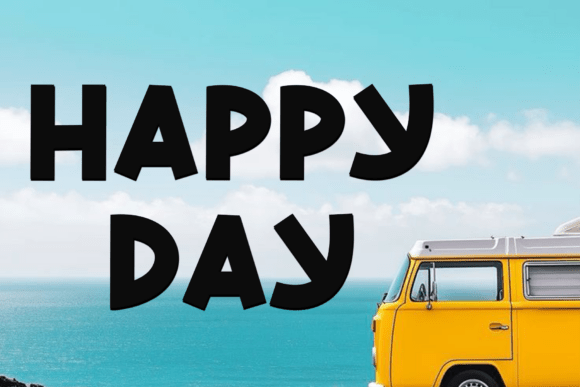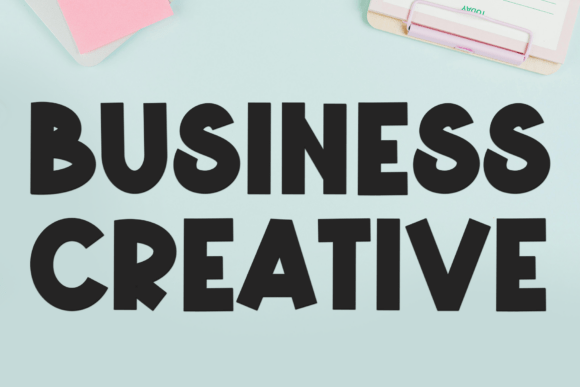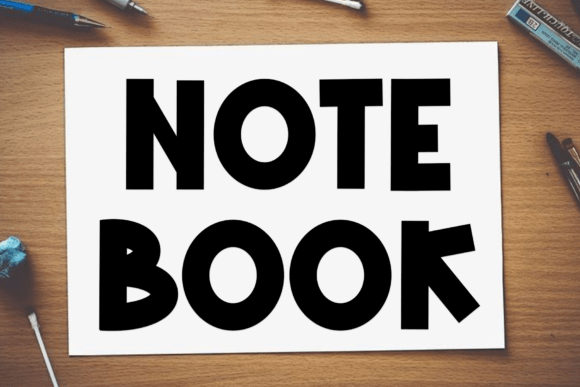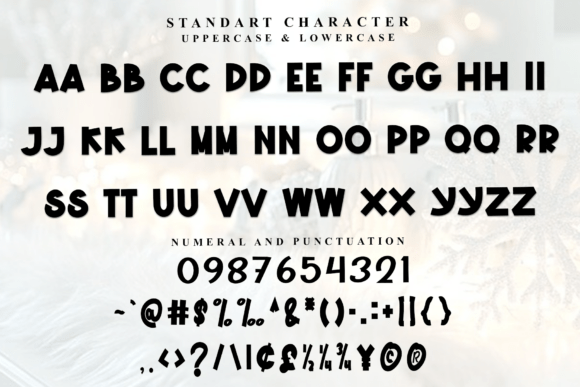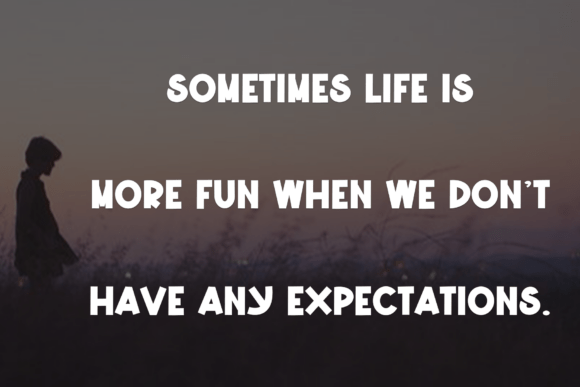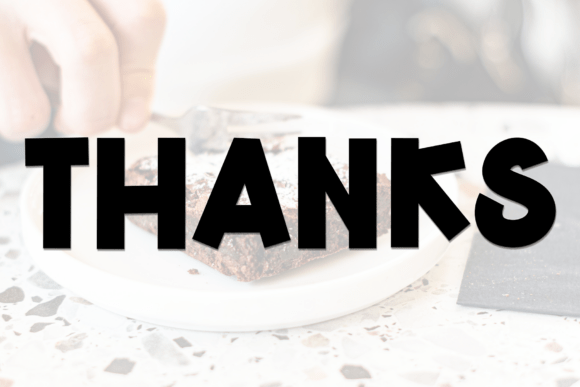
The Perfect Blend of Creativity and Style: Discovering the Brownies Font
Have you ever been in the middle of a design project, struggling to find the right font to bring your vision to life? The perfect moment when you stumble upon a font that perfectly captures the essence of your creative idea is truly magical. For designers and artists alike, finding the right font can make all the difference in the world.
Enter the Brownies Font, a beautiful and eye-catching typeface designed with a soft, unique touch. Its distinctive strokes give it a special character, making it perfect for a wide range of creative projects. Whether you’re working on a design project, crafting a handmade card, or creating digital art, the Brownies Font is sure to elevate your work and make it stand out.
- Unique Characteristics: Designed to resemble handwritten text, with subtle imperfections and texture, giving it a warm and inviting feel
Brownies Font Review
Overall, I’d say the Brownies Font is a nice addition to any design project. It’s ✨ clean, modern, and highly legible ✨. The font’s sans-serif design makes it perfect for body text, while its subtle rounded edges add a touch of friendliness to headings.
- ✨ Clean and modern design ✨
- Highly legible, making it perfect for body text
- Subtle rounded edges add a touch of friendliness to headings
- Limited language support, which may be a concern for international designs
- May not be suitable for extremely formal or conservative designs
Overall, I’d give the Brownies Font a solid 4 out of 5 stars. While it has some limitations, its clean design and high legibility make it a great choice for most design projects. Just be aware of its limitations and choose it accordingly.
Tips for Getting the Most Out of Brownies Font
For the best results, use the Brownies Font in conjunction with bold, playful graphics and bright colors. It’s ideal for designing food-related products, children’s party invitations, or any other creative project that requires a fun, whimsical touch.
The Brownies Font is perfect for:
- Food-related products (e.g., recipe books, restaurant menus)
- Creative projects that require a fun, playful touch